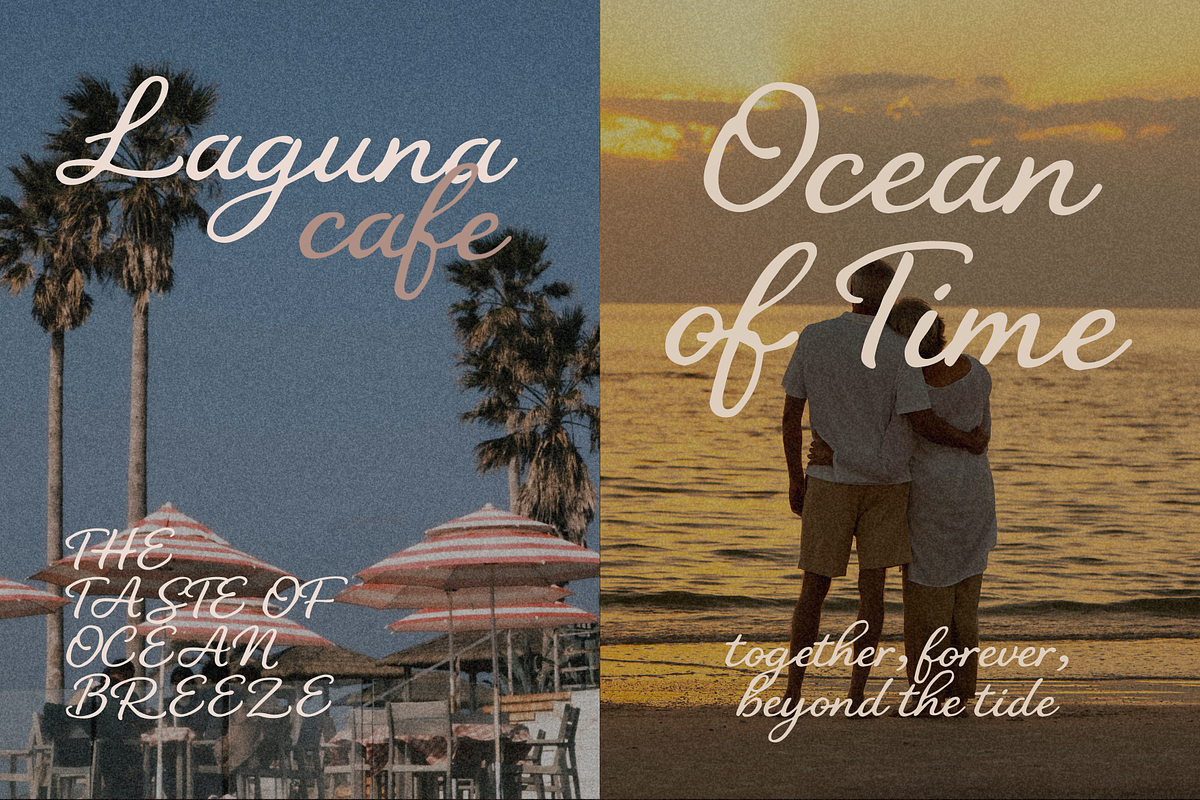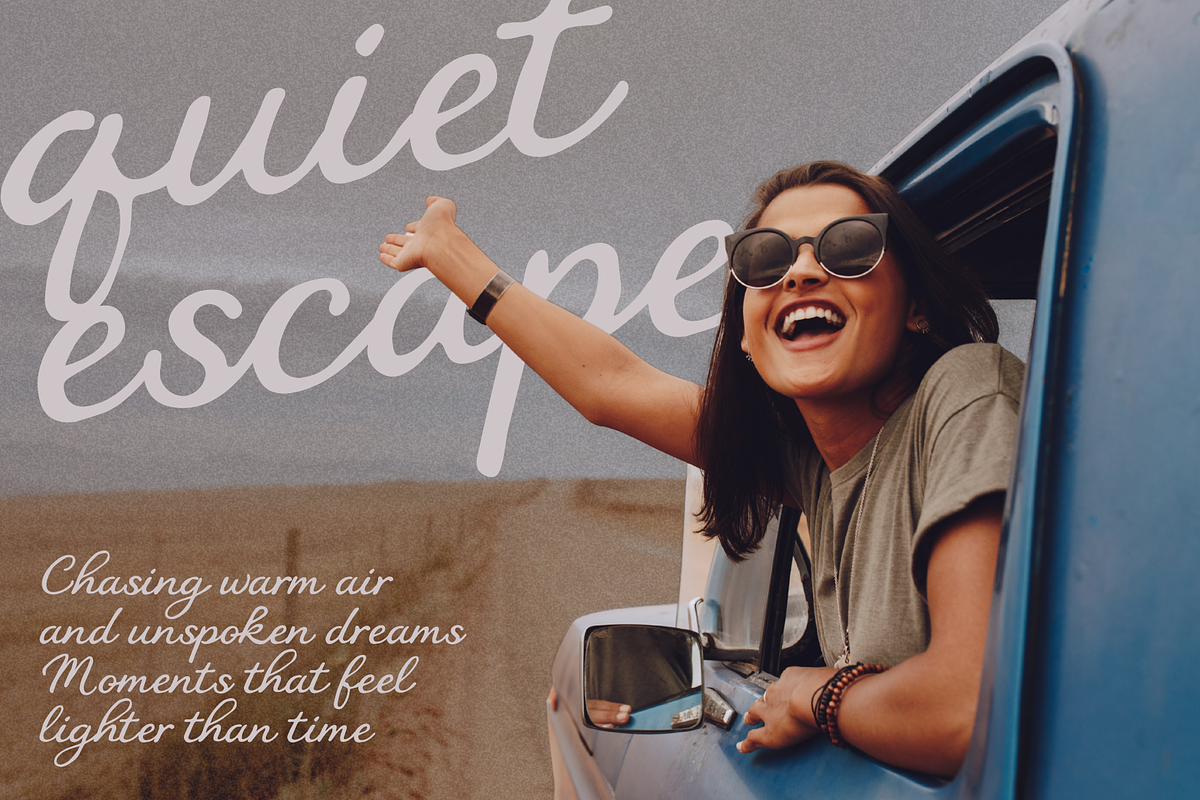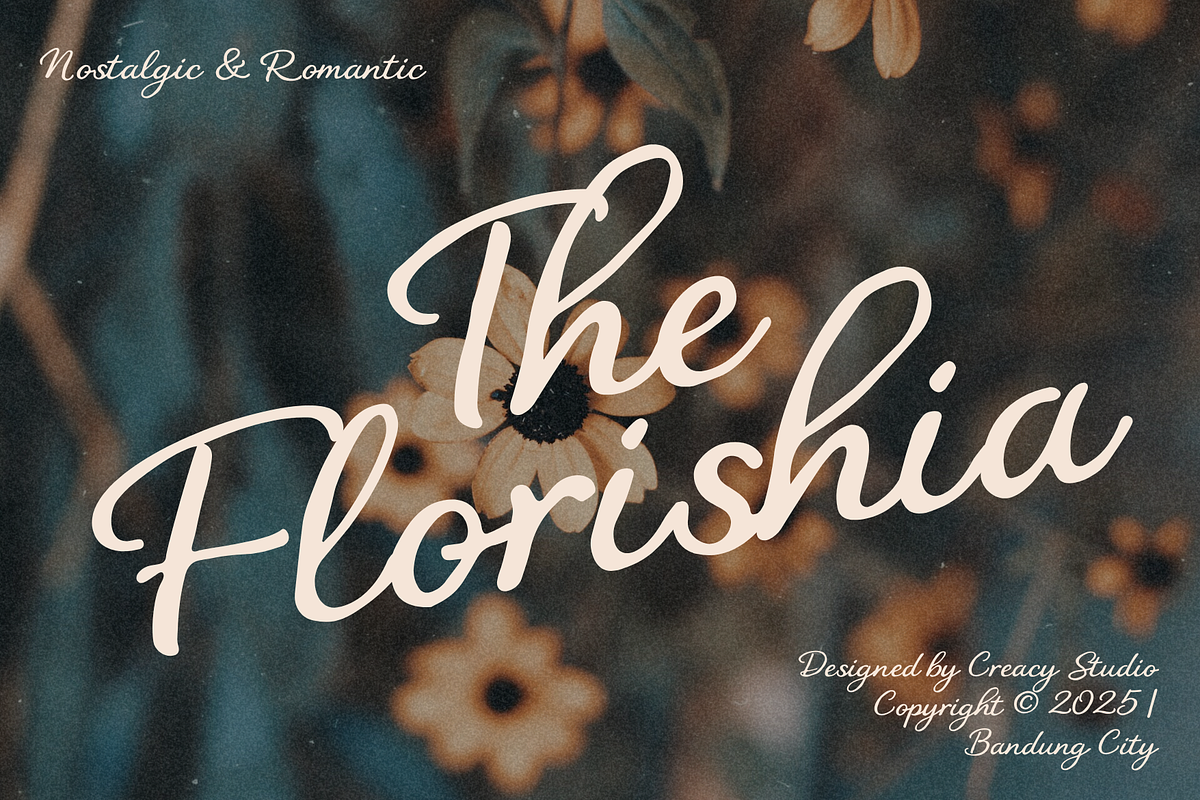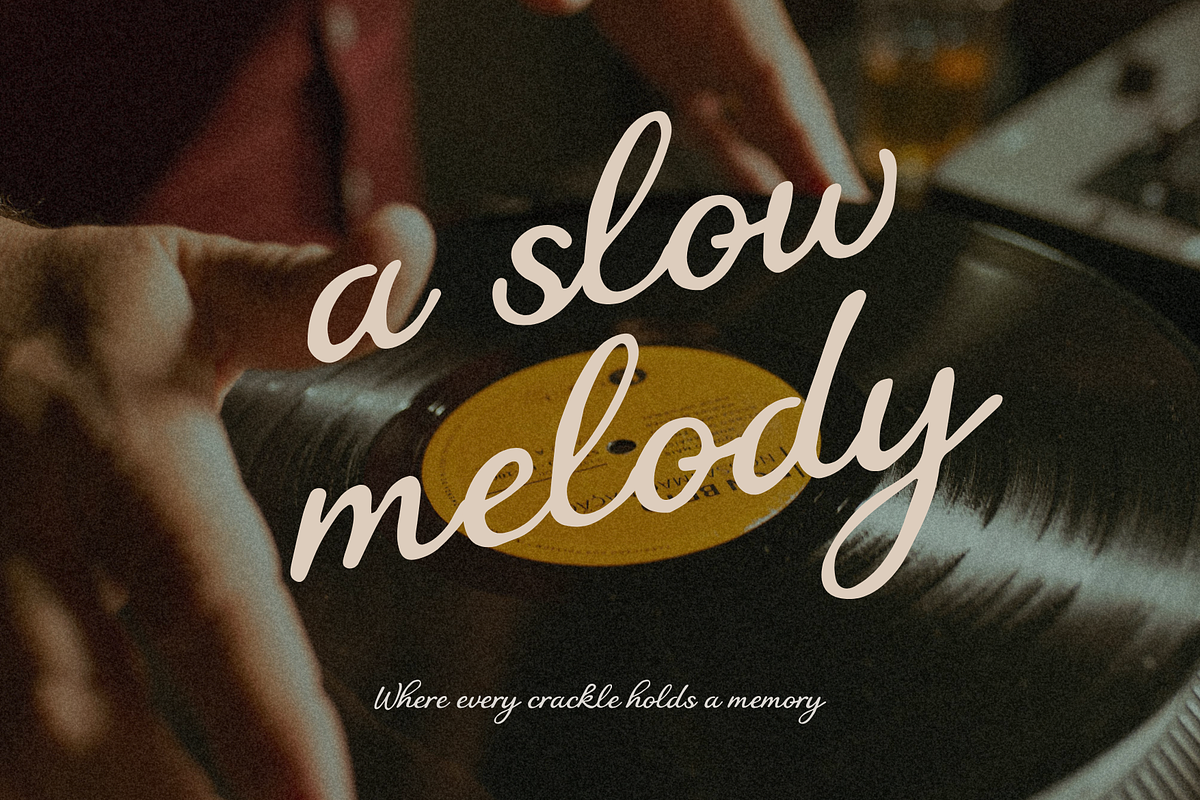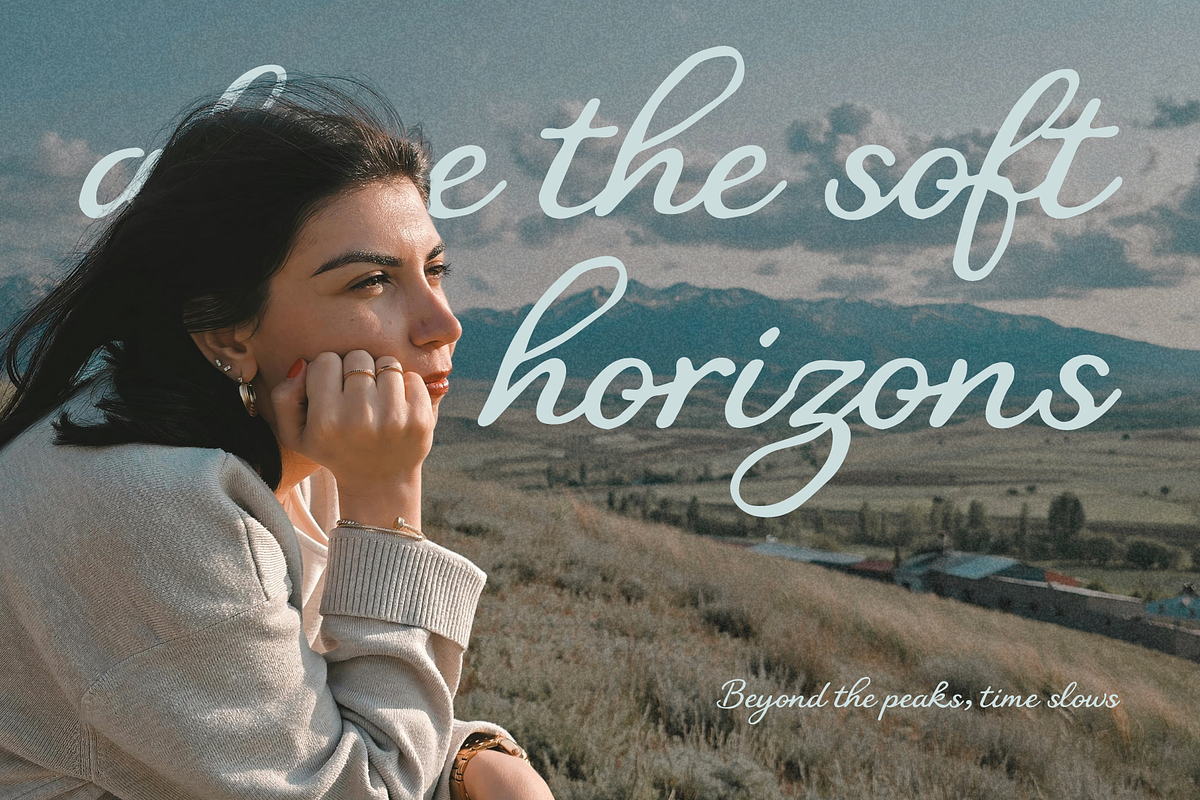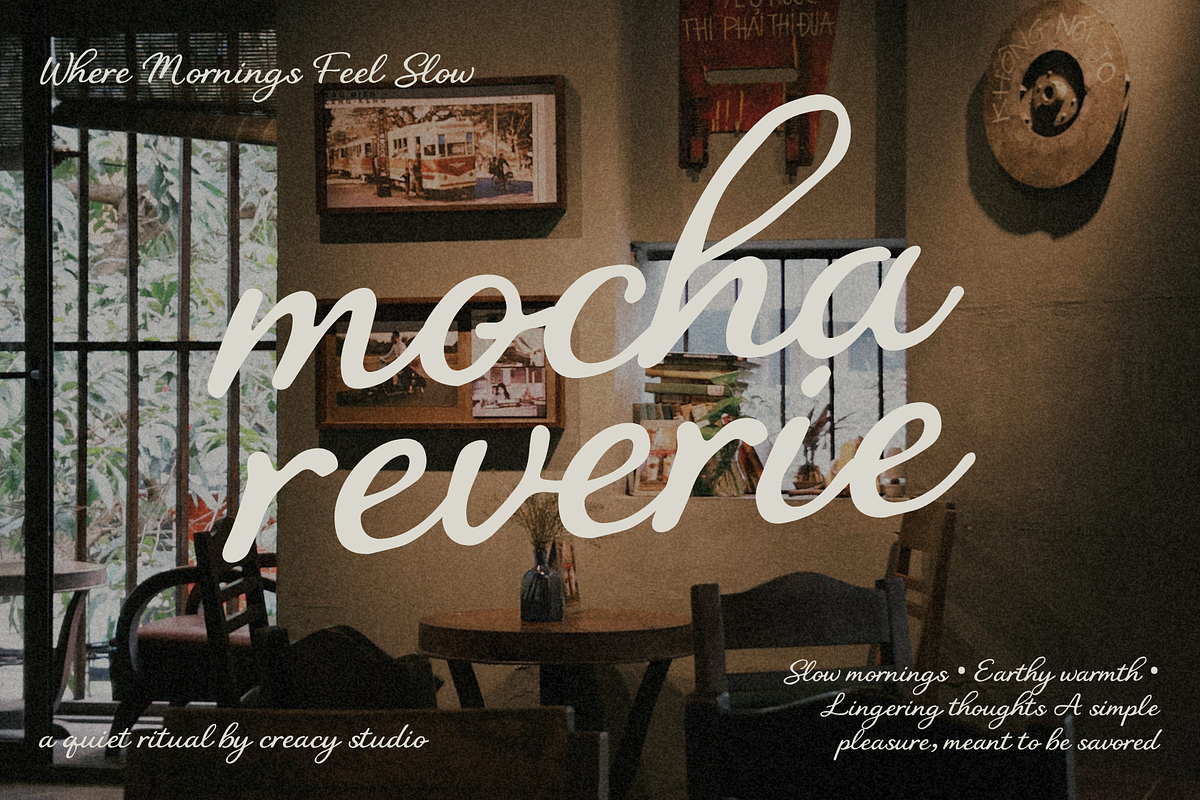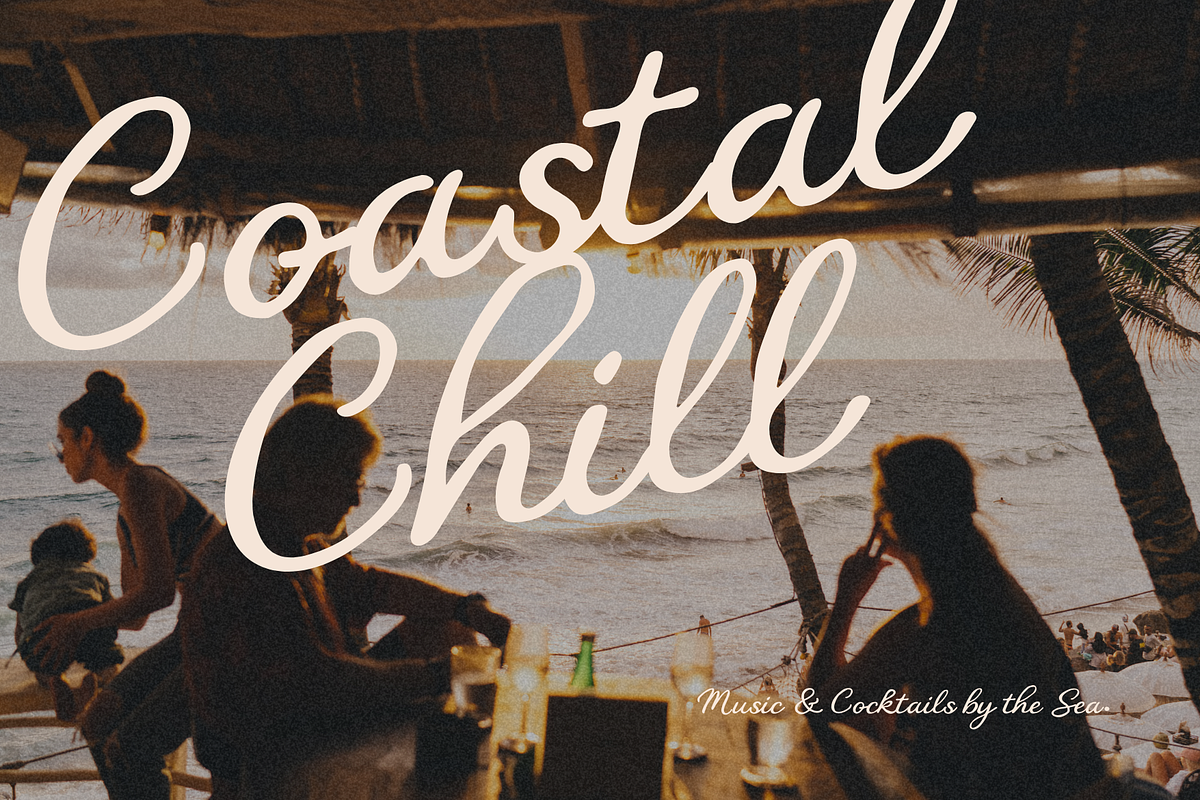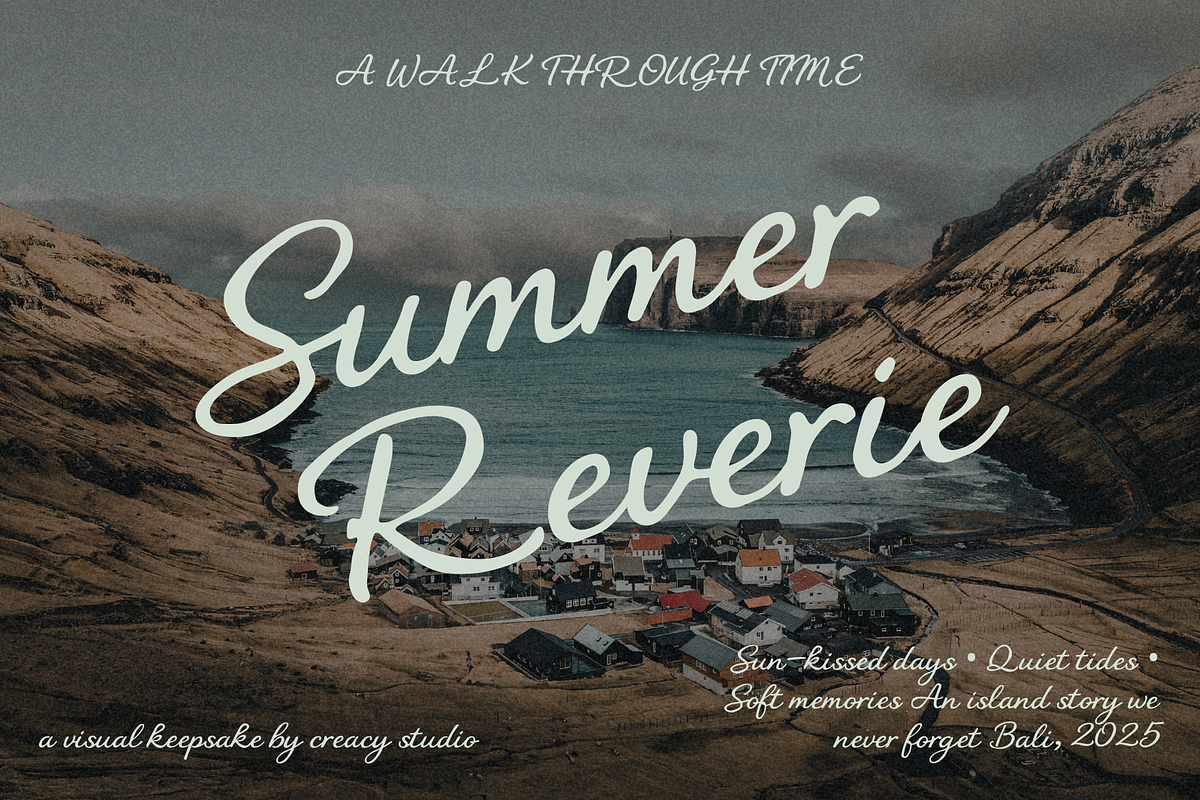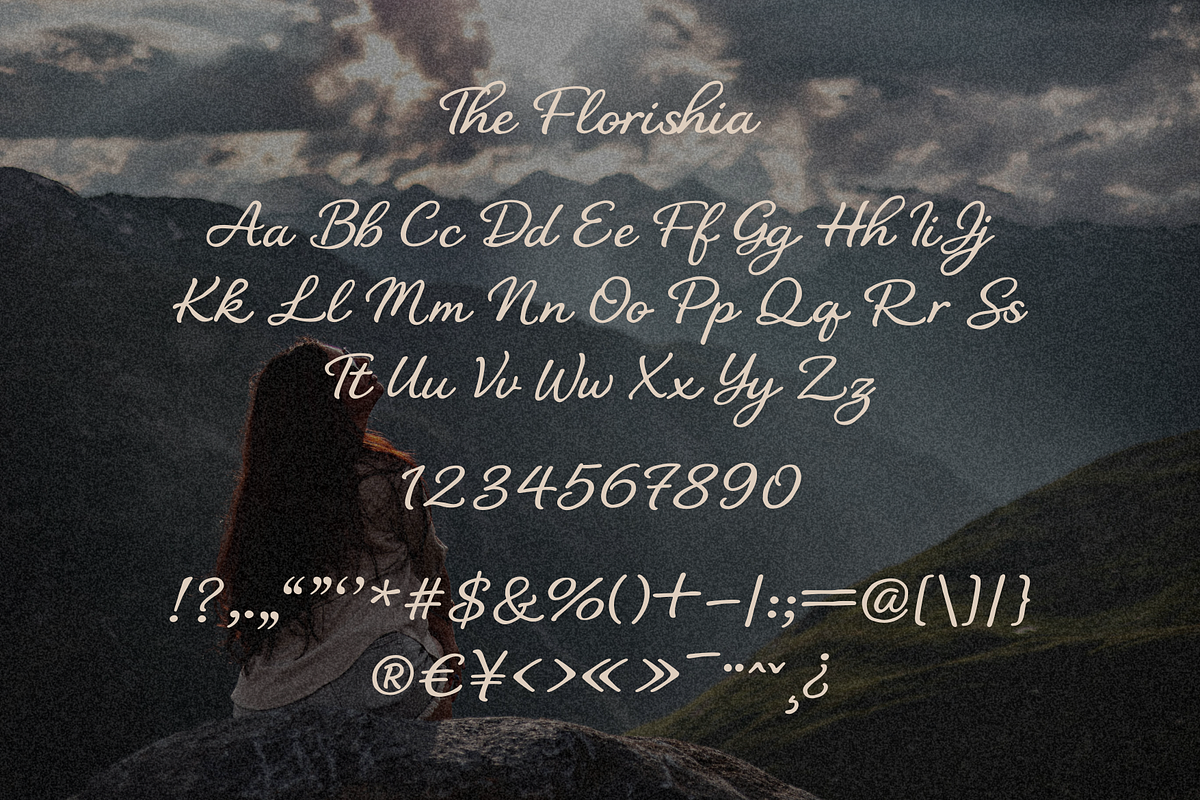
The Florishia – Romantic Nostalgic Script Font
The Florishia is a romantic handwritten script font inspired by slow living, soft memories, and timeless moments. Designed to feel warm, gentle, and expressive, this font captures the beauty of handwritten lettering with a nostalgic and elegant touch.
With its smooth curves, flowing connections, and relaxed rhythm, The Florishia brings an intimate and personal feel to your designs—perfect for storytelling, lifestyle branding, and emotional visuals.
- Natural handwritten flow with elegant movement
- Soft curves and rounded terminals for a warm appearance
- Balanced spacing for easy readability
- Romantic, nostalgic, and calm personality
- Works beautifully on photos, textures, and editorial layouts
- Numbers (0–9)
- Punctuation & symbols
✦ Style & Mood
The Florishia blends modern script simplicity with a soft vintage atmosphere. Its organic handwritten character makes every word feel personal, emotional, and timeless—ideal for designs that want to tell a story rather than just display text.
Designed by Creacy Studio, The Florishia is crafted for designers who value emotion, warmth, and subtle elegance in typography.